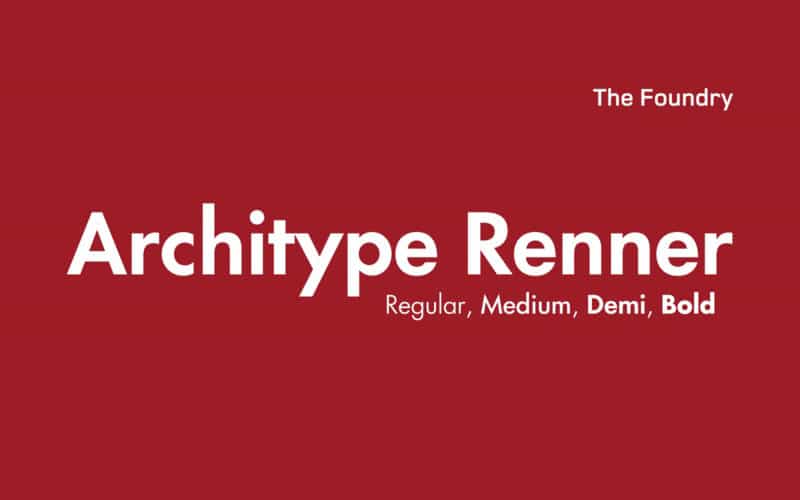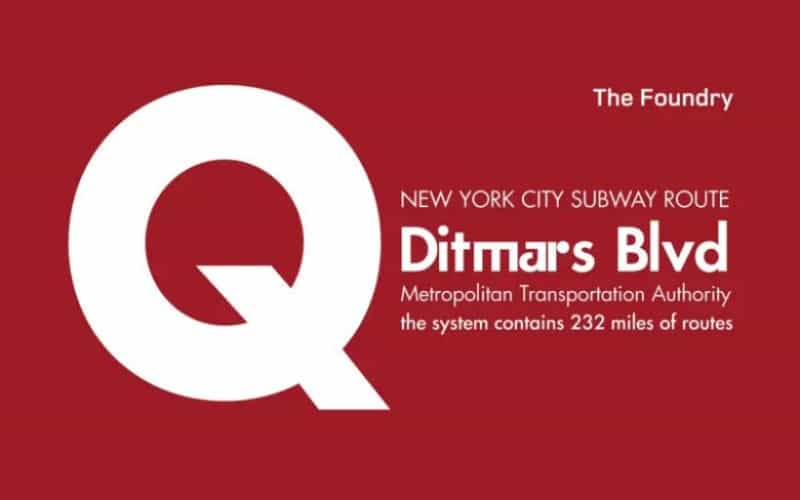
Despite the disciplined geometry of Paul Renner’s sans letterforms, they were initialized with a certain degree of optical adjustment to revive the earlier typeface proportions, characterized by capitals that were once again close to old-style forms and yet retained the spirit of the New Typography. As such, the early experimental characters have been included as alternatives in his sans design, which would eventually be released as the Futura by Bauer, during 1927-30.